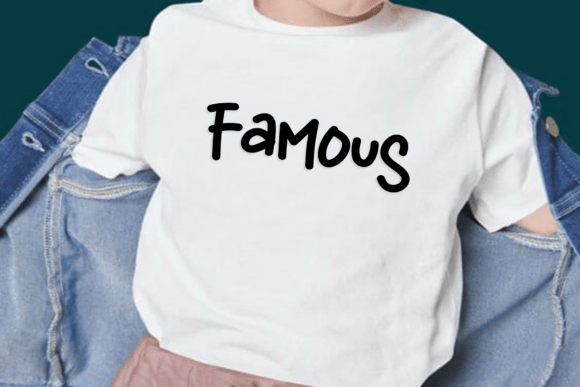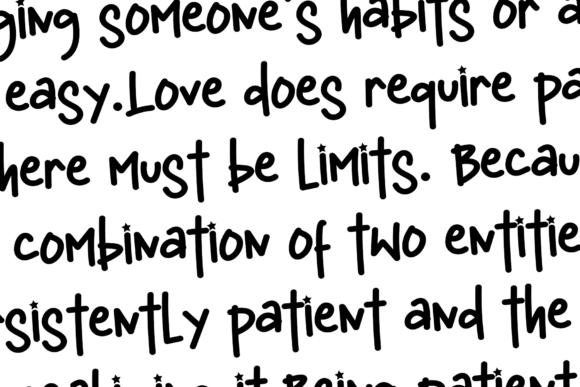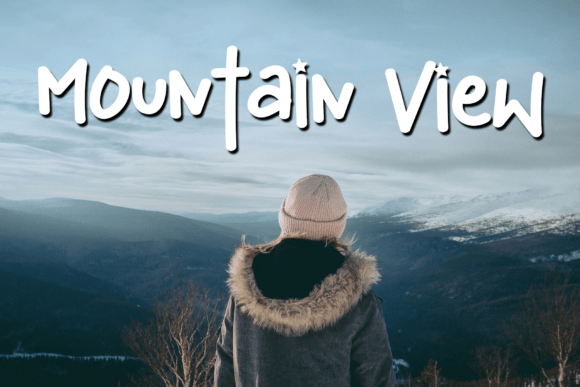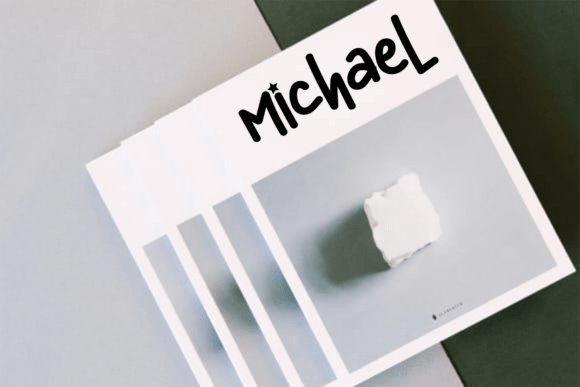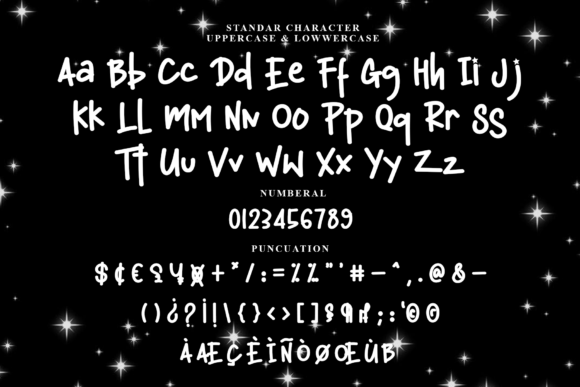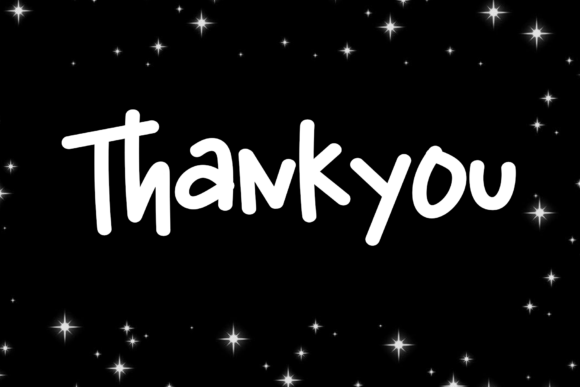
The Joy of Handwritten Style: Introducing Blingstar Font
Who hasn’t felt the urge to grab a pen and paper, letting their creativity flow in a whimsical handwritten style? It’s a feeling of freedom, of unbridled expression, that can be incredibly inspiring. For designers looking to infuse their projects with a sense of approachability and warmth, the Blingstar Font is a valuable addition to their toolkit.
Blingstar Font is a charming, monoline font with a friendly, uneven feel that’s perfect for children’s books, social media quotes, and casual branding. Its clean vertical structure gives it a straightforward, yet approachable, personality that’s sure to connect with audiences. Whether you’re looking to add a touch of whimsy to your designs or create a strong, clear message, the Blingstar Font is an ideal choice.
Blingstar Font Key Features
- Unique Characteristics: Includes 6 different styles (Regular, Italic, Bold, Bold Italic, Outline, and Glow) and 3 swashes (A, E, and O) for creative typography
Blingstar Font Review
Overall, I’d say Blingstar Font is a sparkly addition to any designer’s toolkit ✨. The font’s bold, eye-catching design is sure to grab attention and make a statement.
- Unique, attention-grabbing design ✨
- Perfect for creating luxurious or high-end branding
- Works well for headings and titles
One thing that might give designers pause is the font’s limited flexibility ⚠️. It’s not the most versatile font, and may not be suitable for body text or long-form content.
- Limited flexibility
- Not suitable for body text or long-form content
- May be overused if not used thoughtfully
Despite its limitations, I think Blingstar Font is a great choice for designers looking to add some extra pizzazz to their projects ✨. Just be sure to use it judiciously and balance it out with more traditional fonts.
Tips for Getting the Most Out of Blingstar Font
Use Blingstar Font for headings and titles to add a touch of glamour and sophistication.
Combine Blingstar Font with other fonts to create a unique and eye-catching visual style.
Experiment with different font sizes and colors to create a dramatic effect.